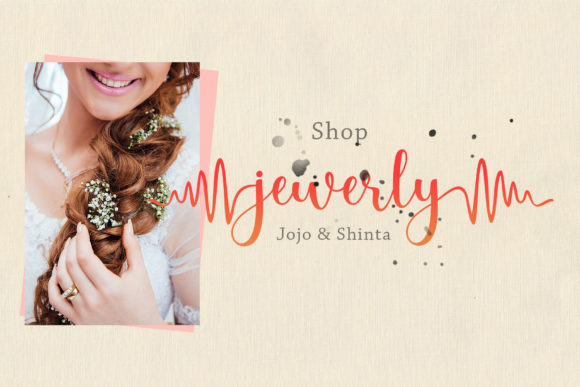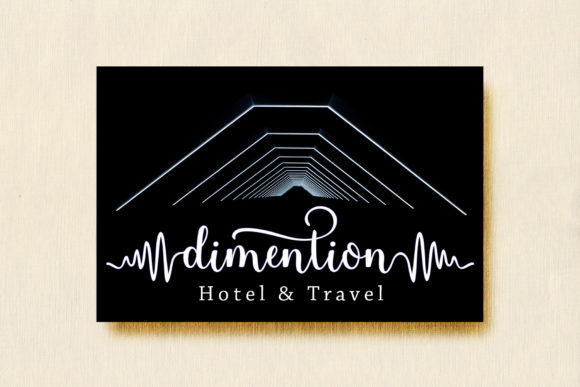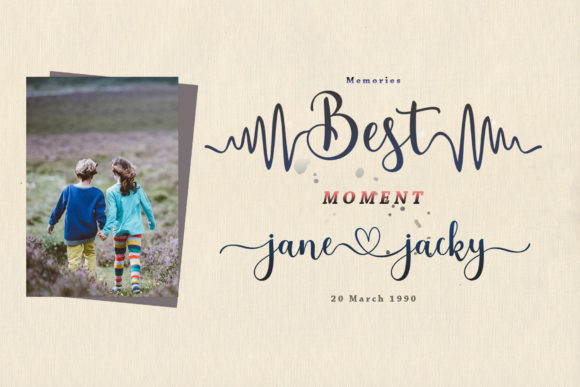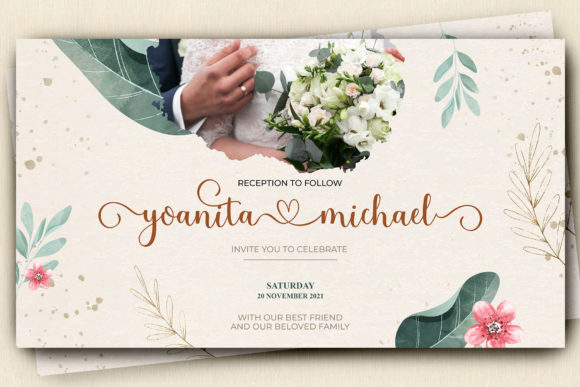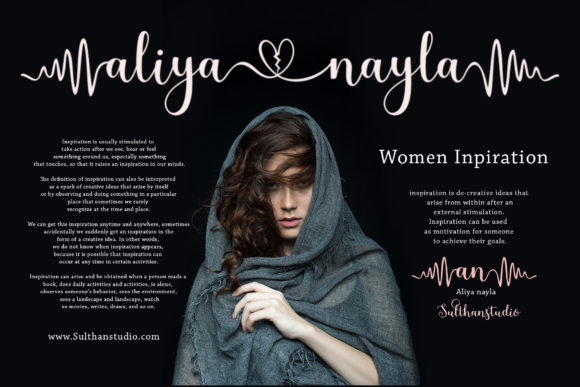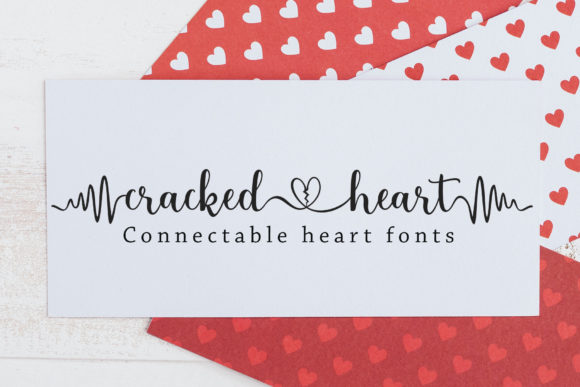
Alice Stelly Font: Elevate Your Designs with Elegance and Sophistication
Are you looking for a font that exudes romance, sweetness, and luxury? Look no further than the Alice Stelly Font, a stunning calligraphy typeface that is sure to add a touch of elegance to any design project. With its unique and flowing characters that dance along the baseline, Alice Stelly is the perfect choice for designers and crafters who want to create beautiful and eye-catching designs.
What Makes Alice Stelly Font So Special?
Alice Stelly Font is a romantic and sweet calligraphy typeface that is designed to make your designs stand out. Its characters are carefully crafted to dance along the baseline, creating a sense of movement and fluidity that is sure to capture the attention of your audience. Whether you’re creating a wedding invitation, a branding project, or a social media graphic, Alice Stelly Font is the perfect choice.
Luxury Spark for Your Designs
Alice Stelly Font is designed to add a luxury spark to any design project. Its elegant and sophisticated style is perfect for high-end brands, luxury products, and special occasions. With Alice Stelly Font, you can create designs that exude elegance, sophistication, and refinement. Whether you’re a designer, a crafter, or a DIY enthusiast, Alice Stelly Font is the perfect choice for anyone who wants to create beautiful and luxurious designs.
One of the best things about Alice Stelly Font is that it is PUA (Private Use Area) encoded. This means that you can access all of the amazing glyphs and ligatures with ease. PUA encoding allows you to access a wide range of characters and symbols that are not available in standard fonts. With Alice Stelly Font, you can easily access swashes, ligatures, and other special characters that will take your designs to the next level.
Alice Stelly Font is perfect for designers and crafters who want to create beautiful and eye-catching designs. Whether you’re creating a logo, a brochure, or a social media graphic, Alice Stelly Font is the perfect choice. Its elegant and sophisticated style is perfect for a wide range of design projects, from wedding invitations to branding projects. With Alice Stelly Font, you can create designs that are both beautiful and functional.
Tips for Using Alice Stelly Font
Here are a few tips for using Alice Stelly Font in your designs:
- Use Alice Stelly Font for headlines and titles to add a touch of elegance and sophistication.
- Pair Alice Stelly Font with a simple sans-serif font for a beautiful contrast.
- Use the glyphs and ligatures to add a personal touch to your designs.
In conclusion, Alice Stelly Font is a beautiful and elegant calligraphy typeface that is perfect for designers and crafters who want to create luxurious and eye-catching designs. With its unique and flowing characters, PUA encoding, and elegant style, Alice Stelly Font is the perfect choice for anyone who wants to add a touch of sophistication and refinement to their designs. Whether you’re creating a wedding invitation, a branding project, or a social media graphic, Alice Stelly Font is sure to impress.